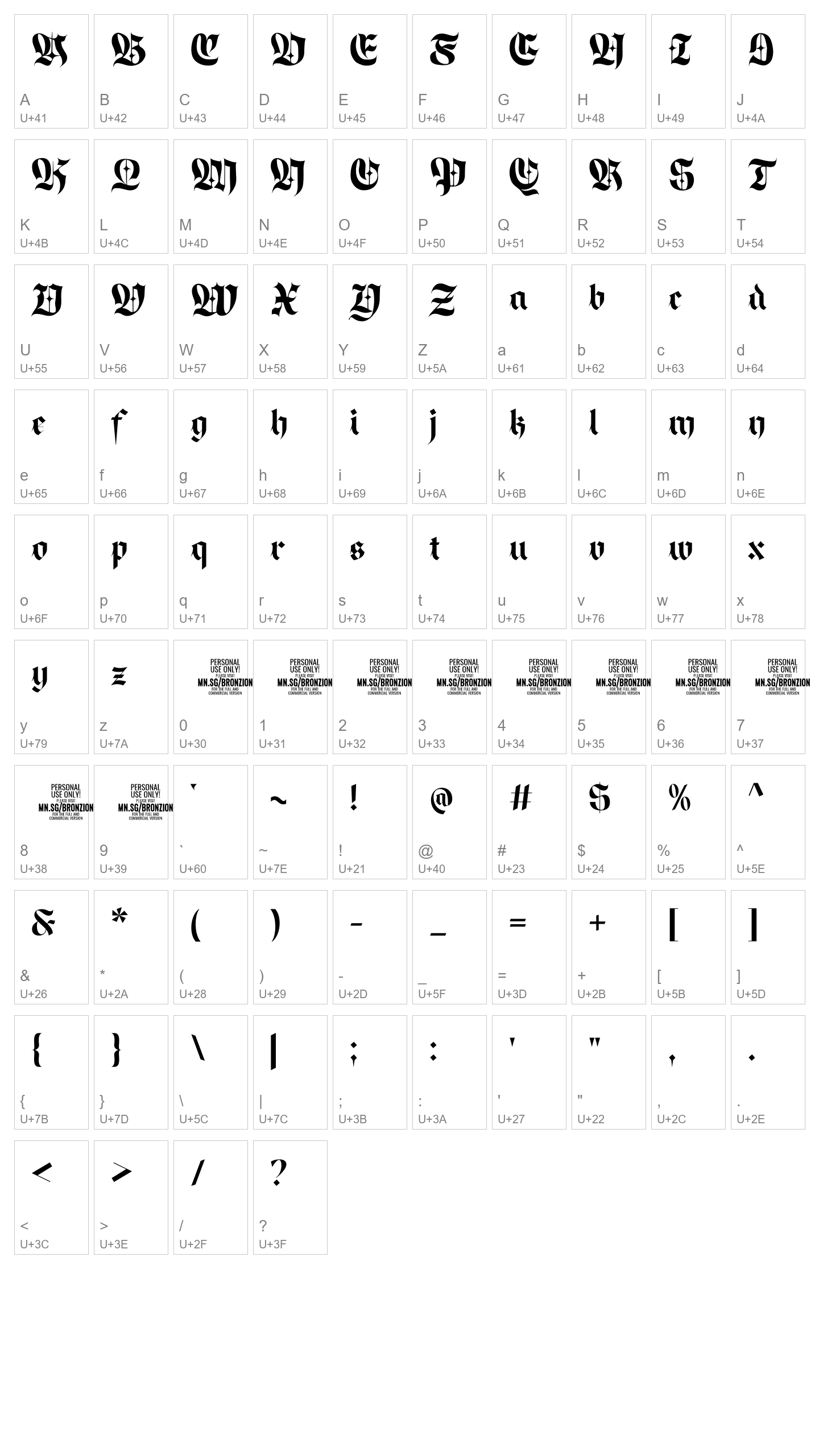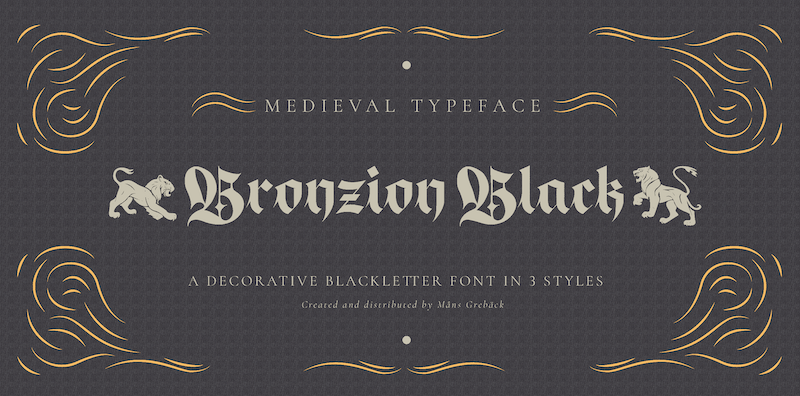
Bronzion Black
Bronzion Black is a heavy blackletter typeface, offering large capitals that are meticulously hand-painted, providing a raw and authentic touch.
Use characters π²π³π ππ
ππππππ¦π―π²πΊππΈπ‘π€΄π¦π¦
π¦π¦π¦π¦π¦ to create heraldry-like logos and symbols.
Example: MagicπEmpire